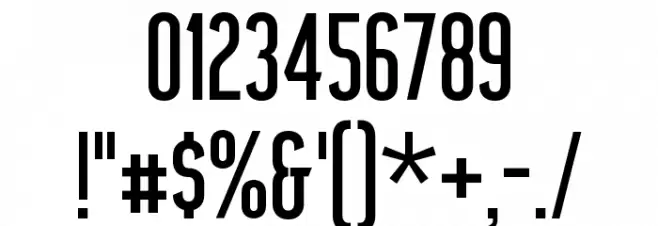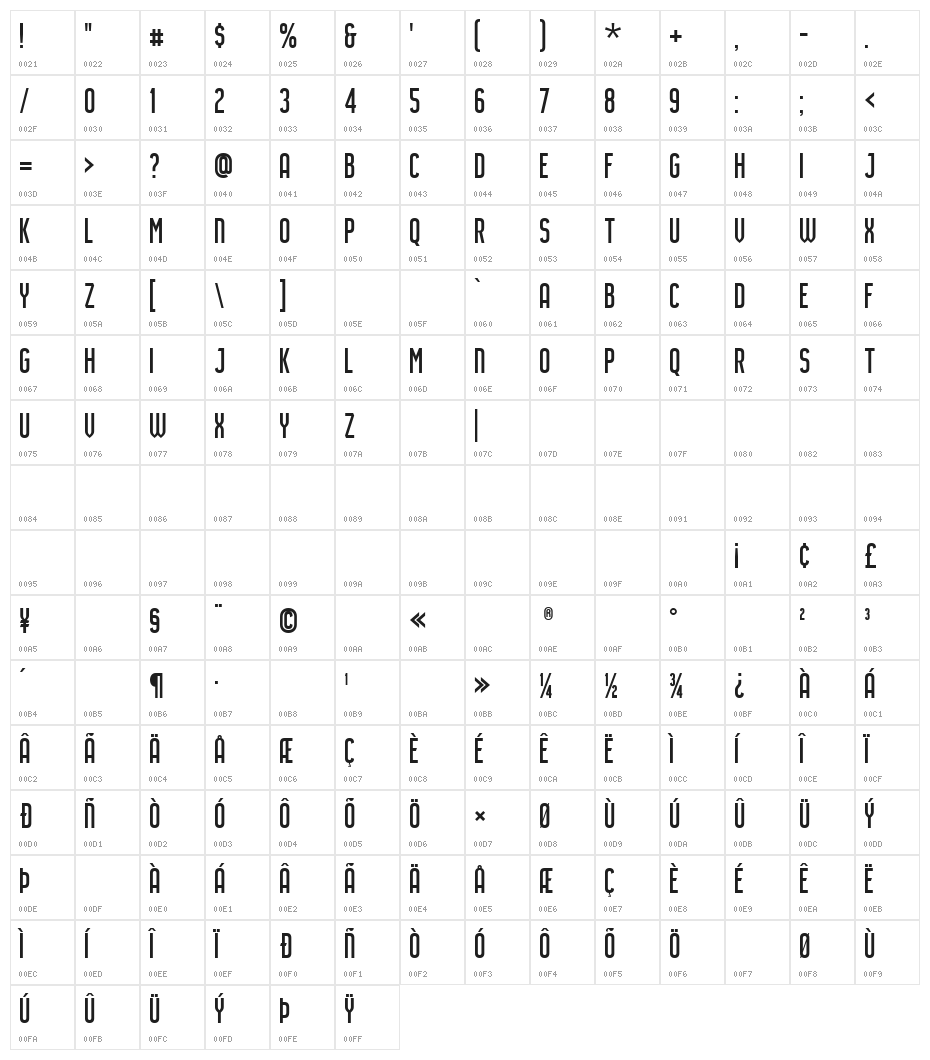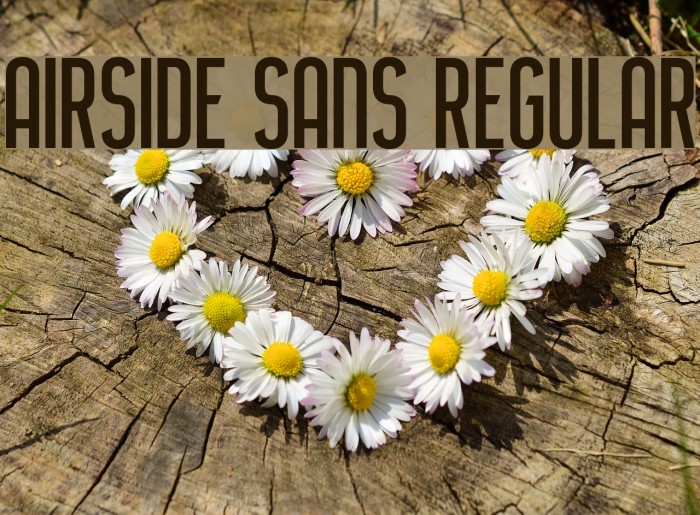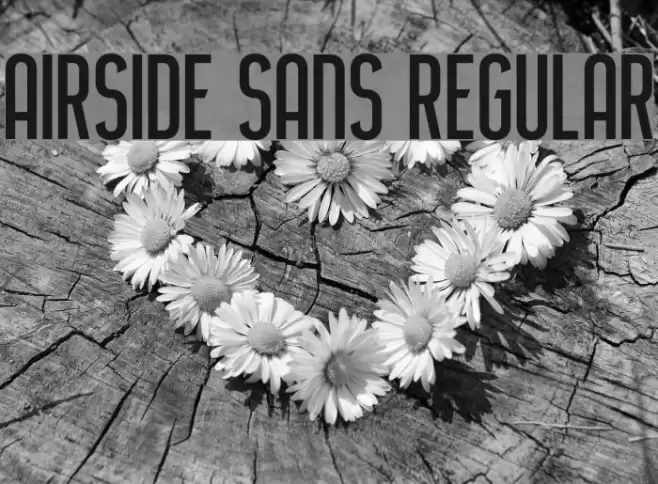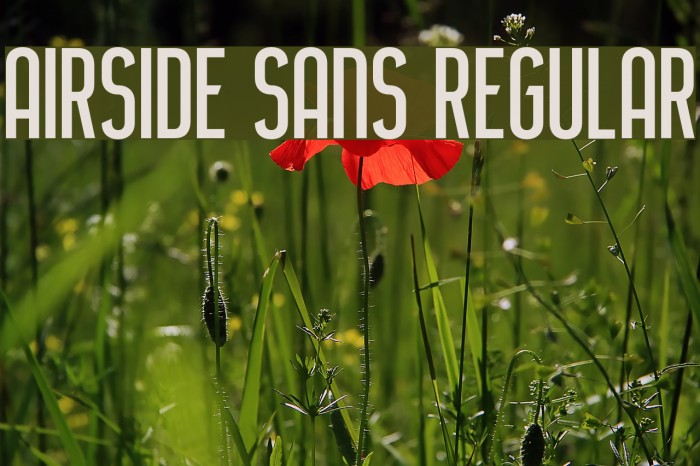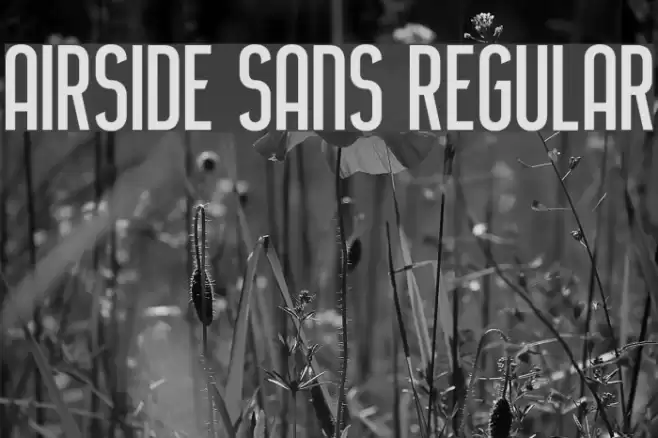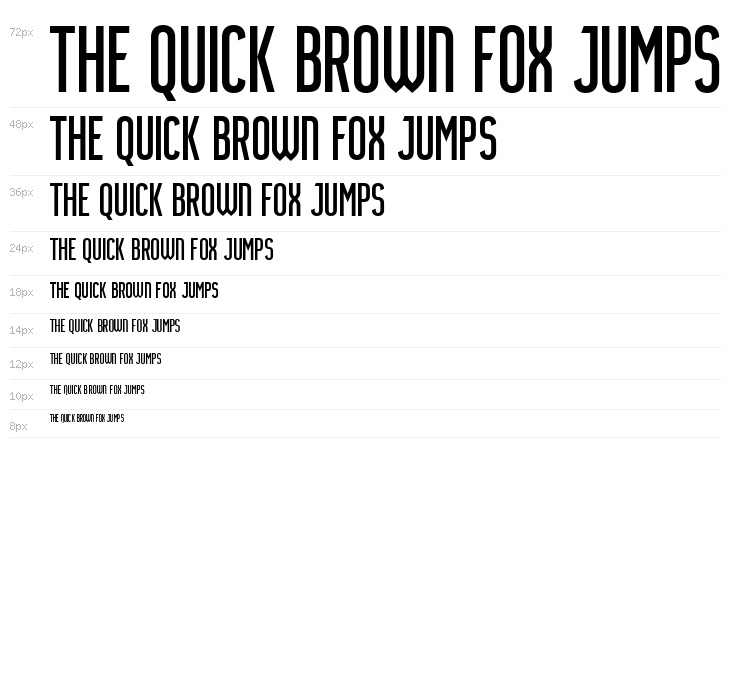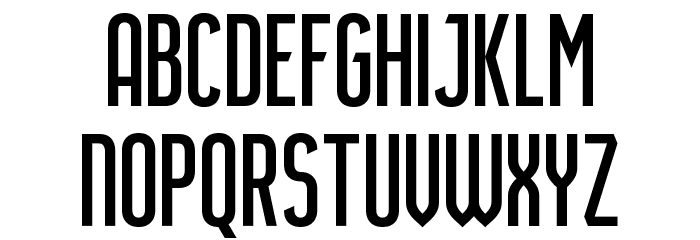
Airside Sans Regular Font
Airside Sans Regular Description
This font features a clean and modern sans-serif style with a geometric structure. The characters are tall and narrow, providing a sleek and streamlined appearance. The uniform stroke width throughout the characters gives it a consistent and balanced look. The uppercase letters are particularly elongated, adding to the font's contemporary feel. The numerals and special characters maintain the same design ethos, ensuring a cohesive appearance across all text. This font is highly legible and versatile, making it suitable for a variety of applications.